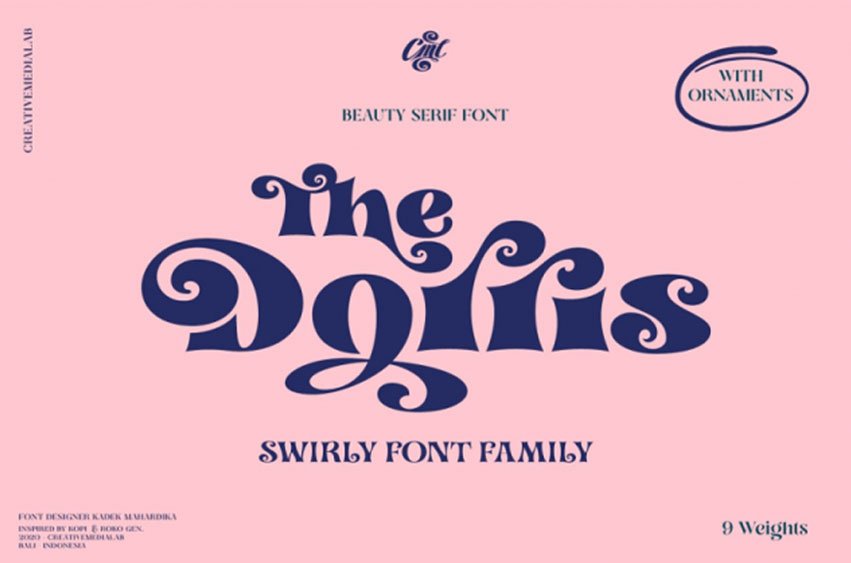
Dorris Font
Dorris Font Unique, cute and versatile serif family with alternates and ornaments. Try all capital letters for groovy retro style, or capitalize for a happy, cute and beauty look.
This Family has 9 weights from thin to black with a soft and curly tail that makes this font look funky and fresh.